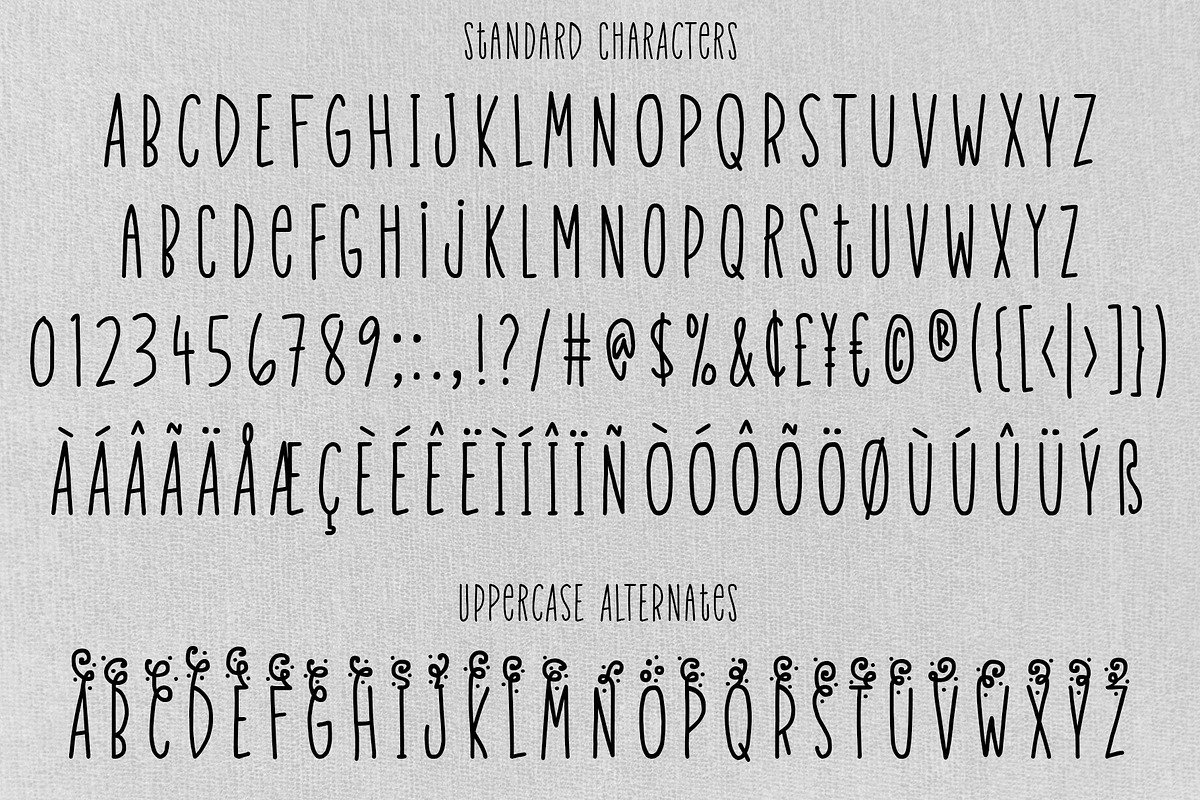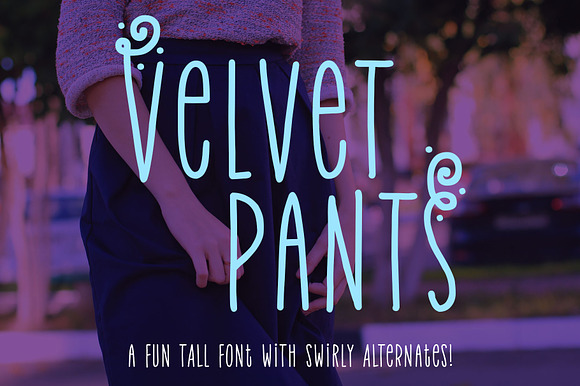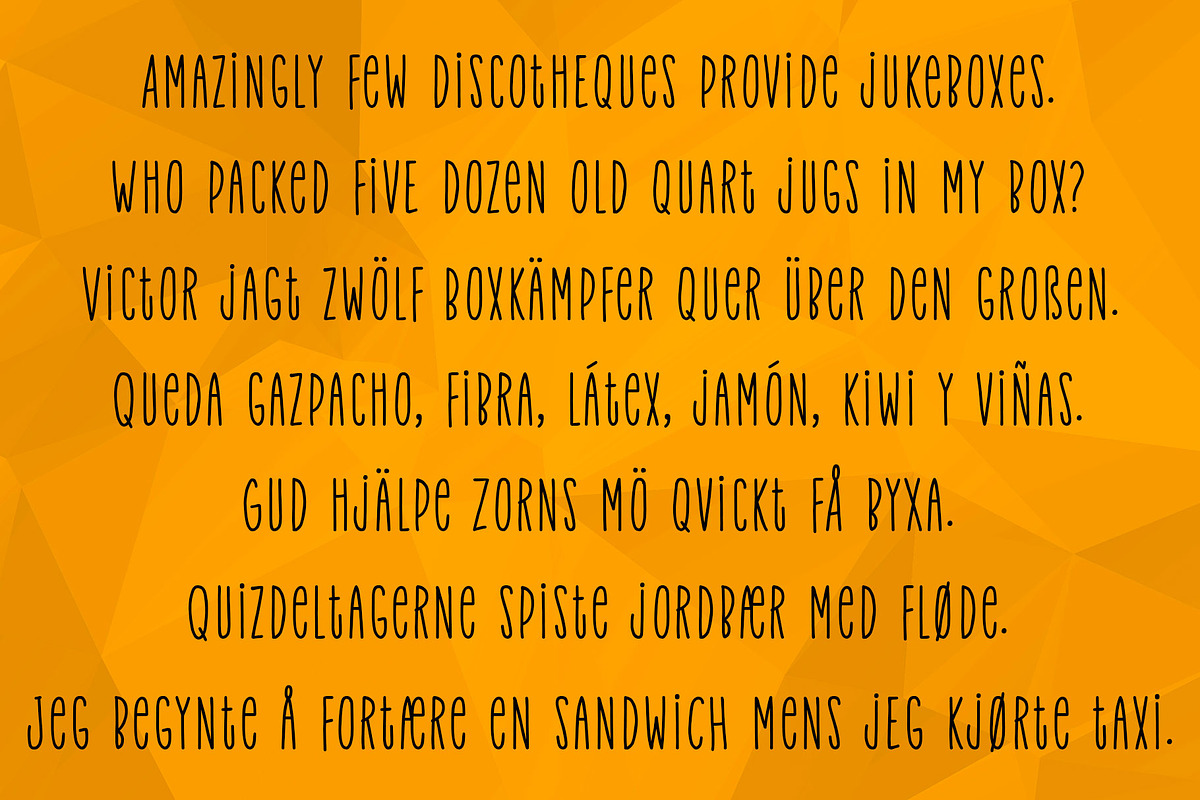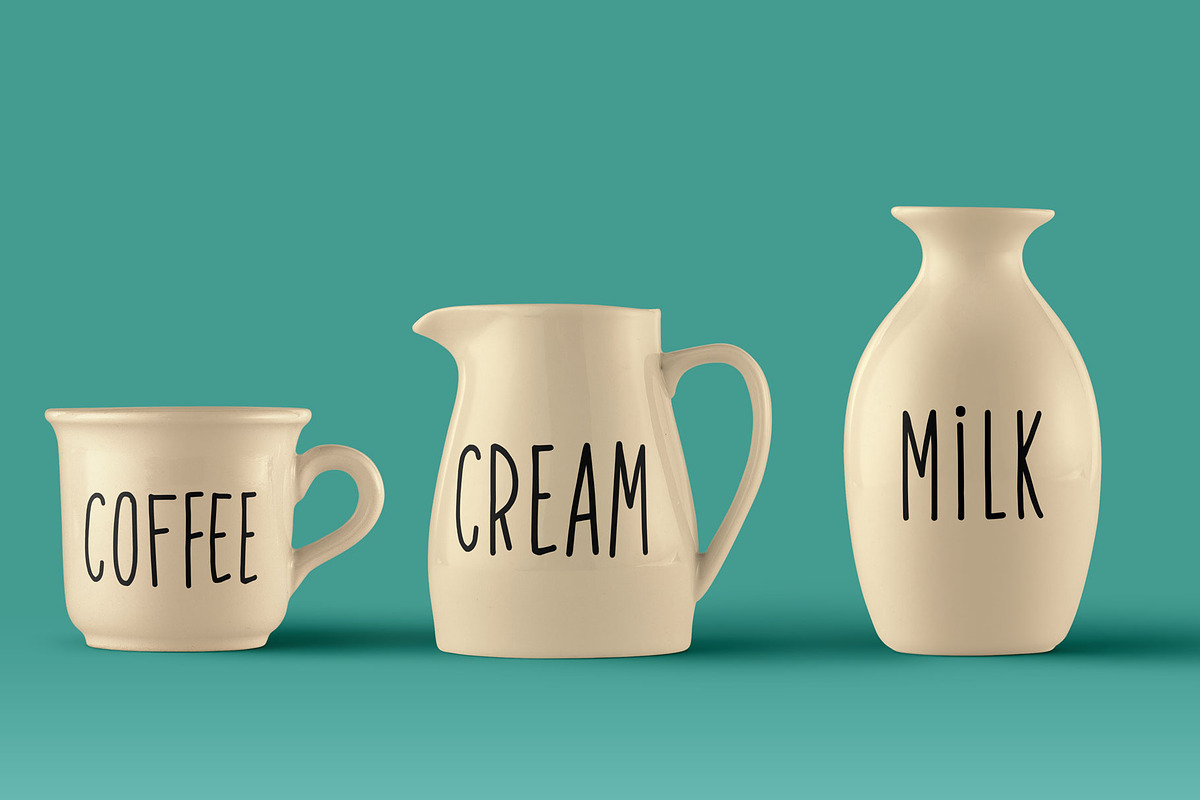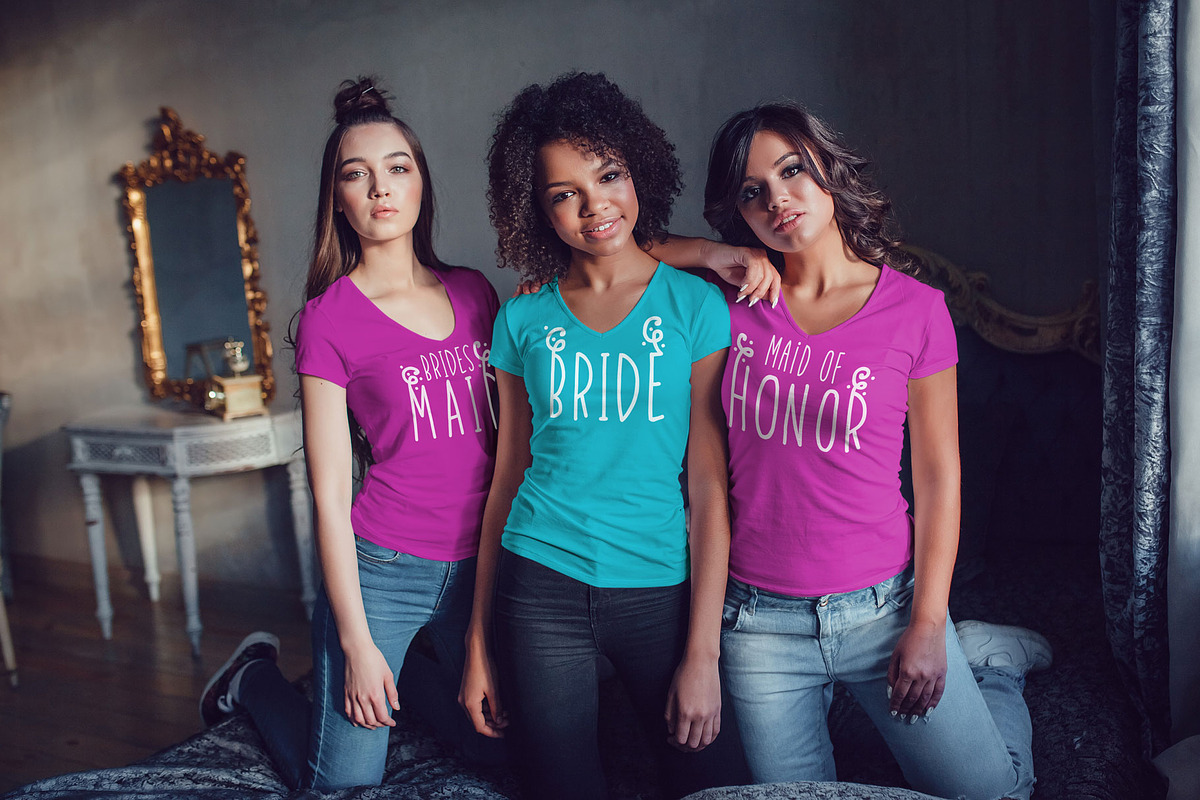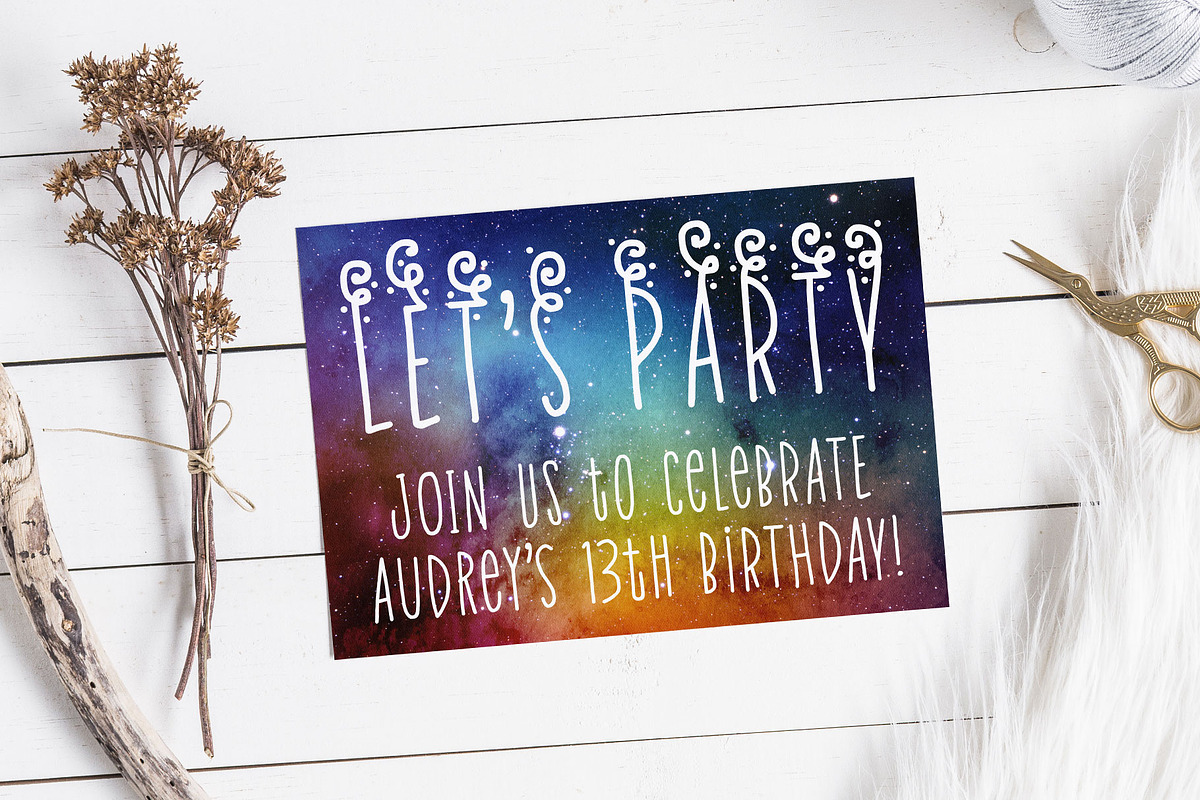
Velvet Pants: tall, narrow caps font
Tall. Narrow. Spaced wide. Sounds like a pair of fashionable trousers to me! Named after a song by the band Propellerheads, this font is fun for crafts, print, branding, and more!
Not only are there standard letters, but the font also contains alternates for all uppercase letters with fun swirls on top of them. Use them for emphasis, or for an entire word!
The font comes with the basic A-Z and a-z alphabet sets; numbers 0-9; basic Latin punctuation; double-letter ligatures for EE, ee, TT, tt; stylistic alternates for E, e, and t; and the swirly party alternates for the uppercase set, mapped to the swash OpenType function.
Velvet Pants also includes the Latin-1 Supplement character set, which includes diacritics used in English, Catalan, French, Gaelic, German, Icelandic, Irish, Italian, Norwegian, Portuguese, Spanish, and Swedish. And all characters are fully PUA-encoded / Unicode compliant, so they can be displayed with any program.